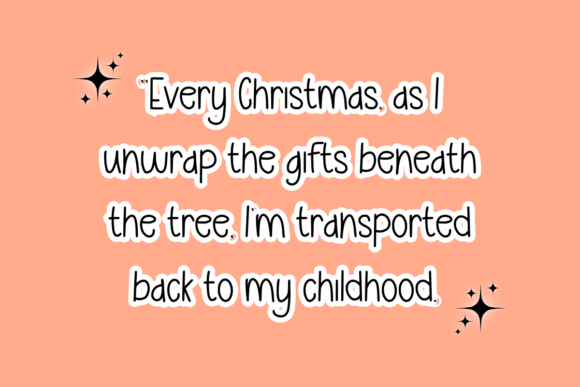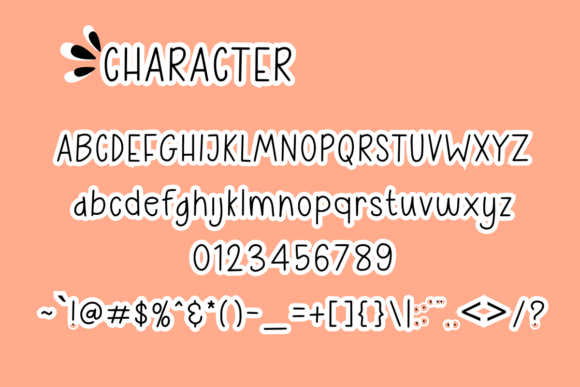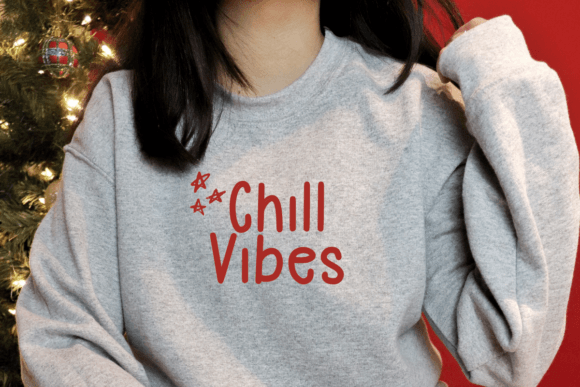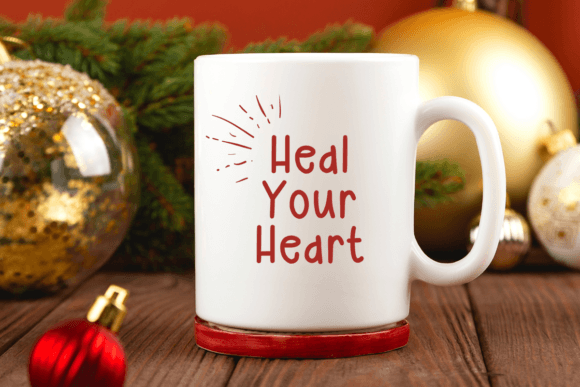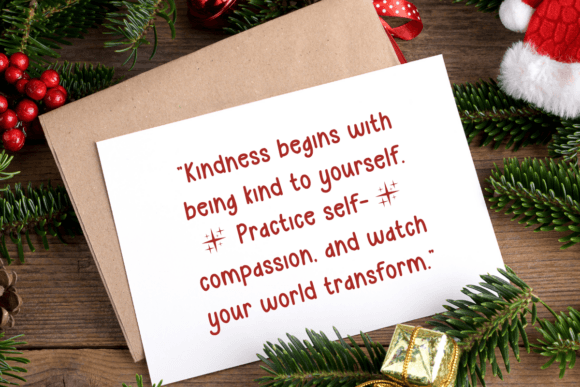
Introducing Box Santa: The Whimsical Font That Brings Joy to Your Designs
Have you ever been in the middle of a design project, pouring your heart and soul into it, only to realize that something’s missing? You’re not quite sure what it is, but you know it’s not quite right. For me, that something was a font that could capture the playful, whimsical spirit of my designs. That’s when I discovered Box Santa, a charming handwritten sans serif font that has become my go-to for adding a touch of joy to my work.
A Personal Design Moment: Finding the Right Font
I was working on a project for a children’s workbook, and I needed a font that would appeal to kids and make the content feel approachable and fun. I tried font after font, but nothing seemed quite right. That was until I stumbled upon Box Santa. Its playful design and charming personality immediately caught my eye, and I knew I had found the perfect fit.
So, what do I love about Box Santa? Here are a few things that make it stand out:
- ✨ Playful design: Box Santa has a whimsical charm that’s perfect for adding a touch of personality to your designs.
- ✅ Versatility: This font is perfect for a wide range of applications, from journals and planners to cards and invitations.
- 💫 Easy to read: Despite its playful design, Box Santa is easy to read, making it perfect for body text and longer blocks of content.
- 🎉 Fun and engaging: This font has a way of making your designs feel more fun and engaging, which is perfect for capturing the attention of your audience.
Of course, no font is perfect, and Box Santa does have a few small quirks:
- 🤔 Limited formal use: Box Santa is a playful font, and as such, it’s not the best choice for more formal designs or projects that require a professional tone.
- ⚠️ Glyph limitations: While Box Santa has a wide range of glyphs and OpenType features, it’s not exhaustive. You may find that it’s missing a specific character or symbol that you need.
Box Santa was designed with the intention of creating a font that would bring joy and whimsy to everyday designs. The designer wanted to create a font that would be perfect for journals, planners, and other creative projects. With its playful design and charming personality, Box Santa is sure to become a favorite among designers and crafters alike.
| Q: What is Box Santa? | A: Box Santa is a whimsically charming handwritten sans serif font that’s perfect for adding a touch of joy to your designs. |
| Q: What can I use Box Santa for? | A: Box Santa is perfect for a wide range of applications, including journals, planners, cards, invitations, and more. |
| Q: Is Box Santa easy to read? | A: Yes, despite its playful design, Box Santa is easy to read, making it perfect for body text and longer blocks of content. |
Overall, Box Santa is a versatile and charming font that’s perfect for adding a touch of personality to your designs. With its playful design, easy readability, and wide range of applications, it’s sure to become a favorite among designers, crafters, and creative hobbyists alike.